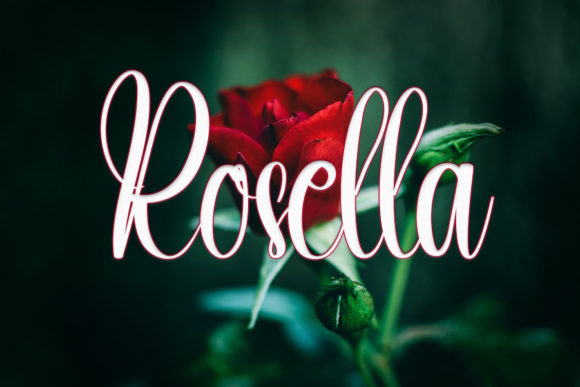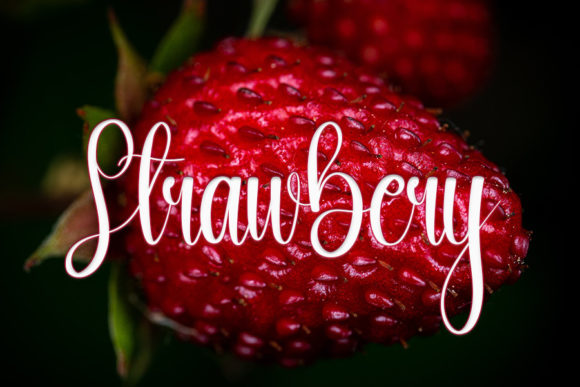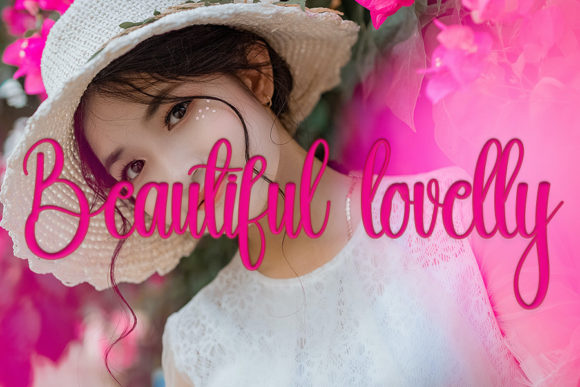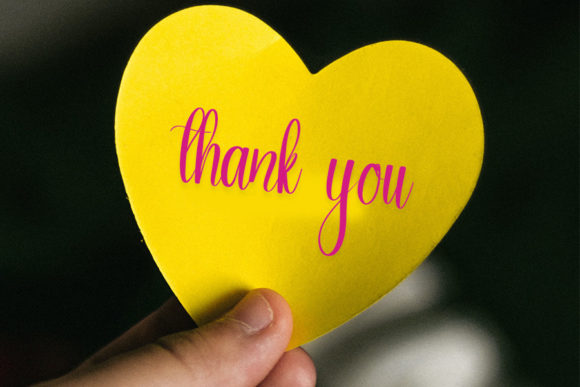
Introduction to Liliana Font
Liliana is a friendly handwritten font, carefully designed to become a true favorite.
It maintains its classy calligraphic influences while feeling contemporary and fresh .
Key Features of Liliana Font
Why Choose Liliana Font?
Liliana Font offers exceptional quality and versatility, making it a valuable addition to your design toolkit. Whether you’re creating for personal projects or commercial use, Liliana Font delivers professional results.